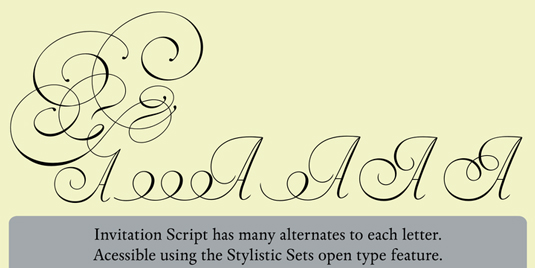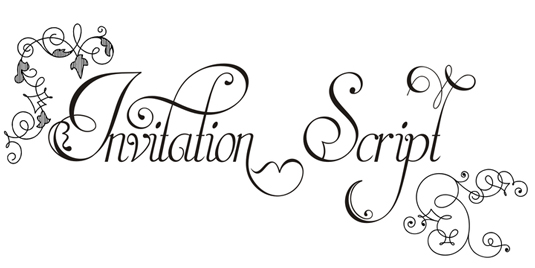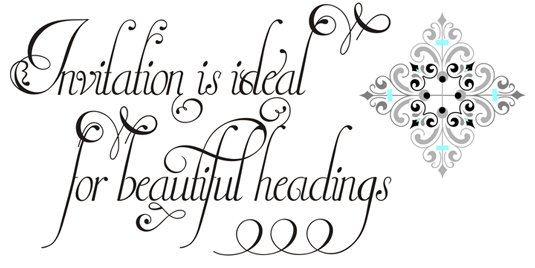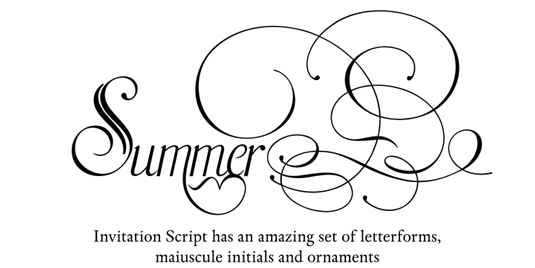
Font of the day: Invitation Script
Invitation Script by Iza W
Invitation Script is a modern revival of the classic work of Portuguese type designer Manuel de Andrade de Figueiredo, who published Nova Escola para Aprender a Ler, Escrever e Contar, one of the most important books on Portuguese calligraphy and typography.
Designed by Iza W and published by Brazilian type foundry Intellecta Design, the script font family is perfect for ideal for beautiful headings, signatures, art work typography, titles and short pieces of hand-lettered text.